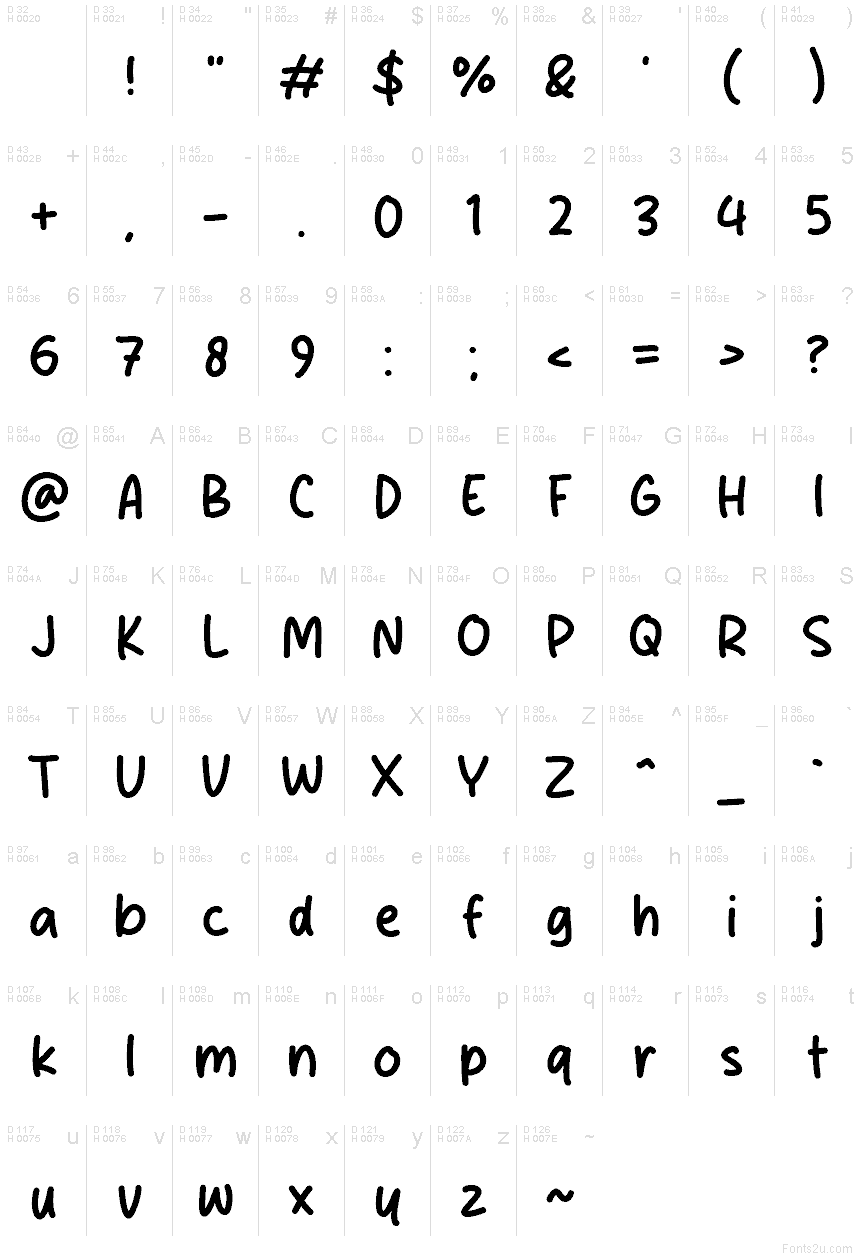
Speak Days
Speak Days font designed by MJType is a free handwritten font with a casual and friendly style. The letters follow an uneven baseline trend as fluid strokes craft the easy-going characters. The font’s overall appearance gives it a modern appeal with exceptional readability that can be best realized within medium and large text contexts.
The approachable feel of Speak Days makes it a fitting choice for motivational branding materials, label designs, social media texts, logo titles, package design typographic use, blog enhancing typography, print media layouts such as business cards and brochures in sectors like law firms or the medical field. Enjoy using this versatile font where bringing friendly vibes is necessary.